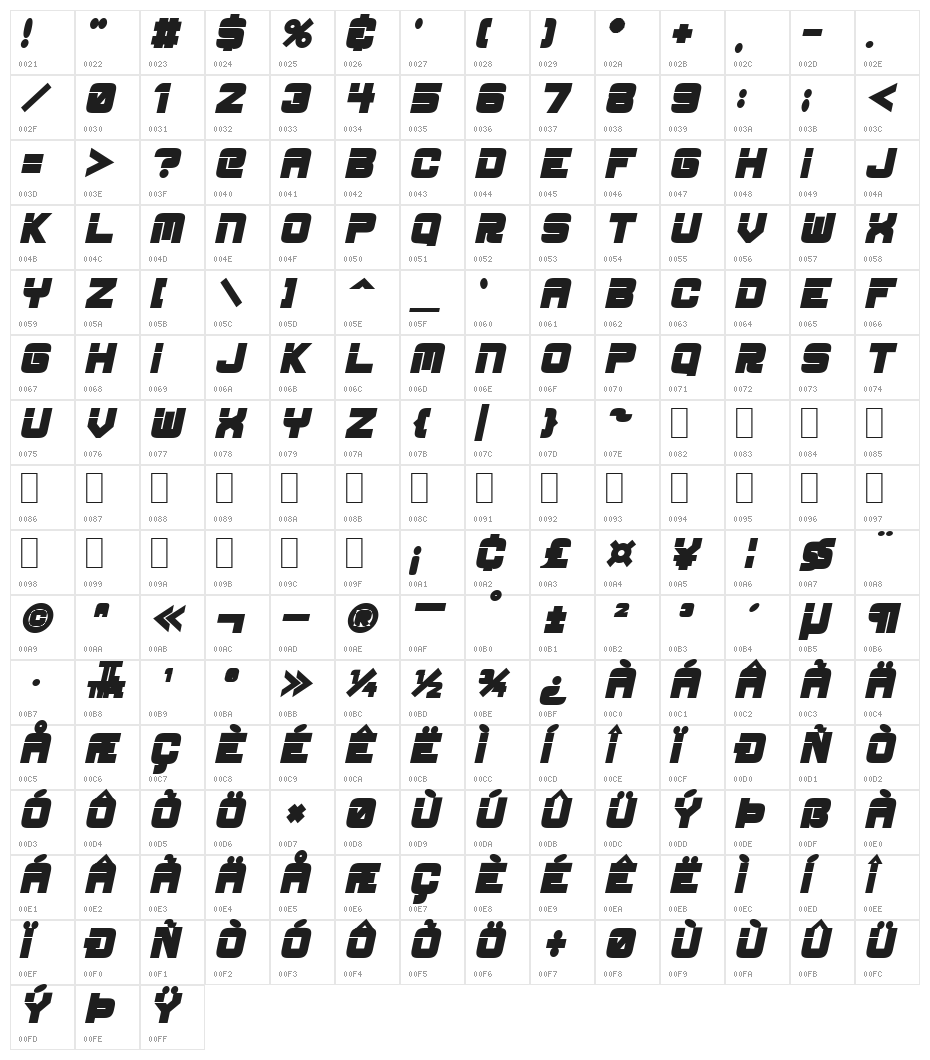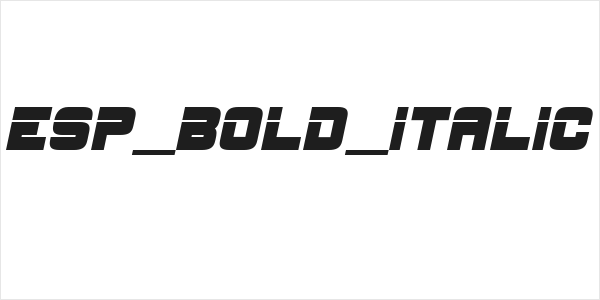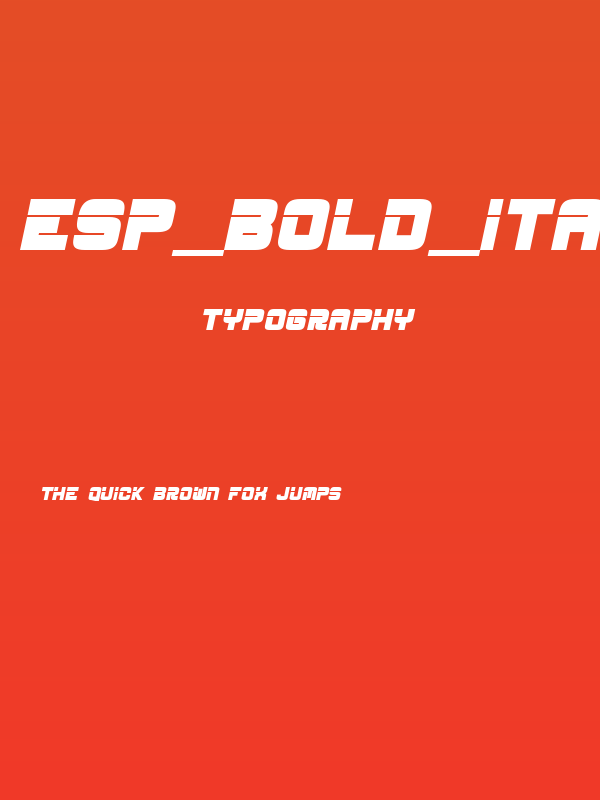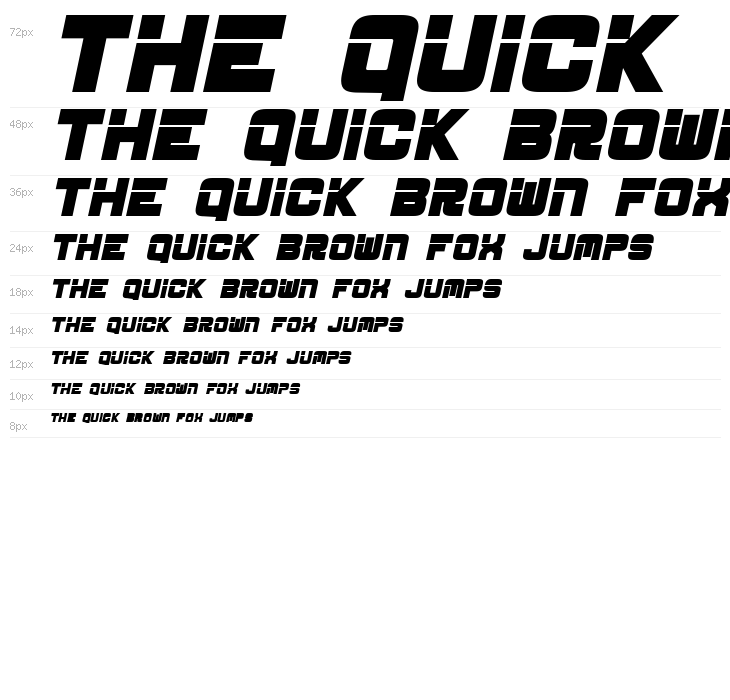
ESP_Bold_Italic Font
ESP_Bold_Italic Description
This font features a bold and italicized style with a modern, futuristic appearance. The characters are designed with a strong, angular form, giving them a dynamic and energetic look. The uppercase letters are particularly striking, with a consistent slant that enhances their boldness. The lowercase letters maintain the same angular style, ensuring uniformity across the typeface. Numbers and special characters are crafted with the same attention to detail, making them suitable for a variety of uses. The font's overall design is both eye-catching and versatile, ideal for projects that require a strong visual impact.
Proposed ProjectsIdeal for branding, sports team logos, futuristic designs, and dynamic posters.